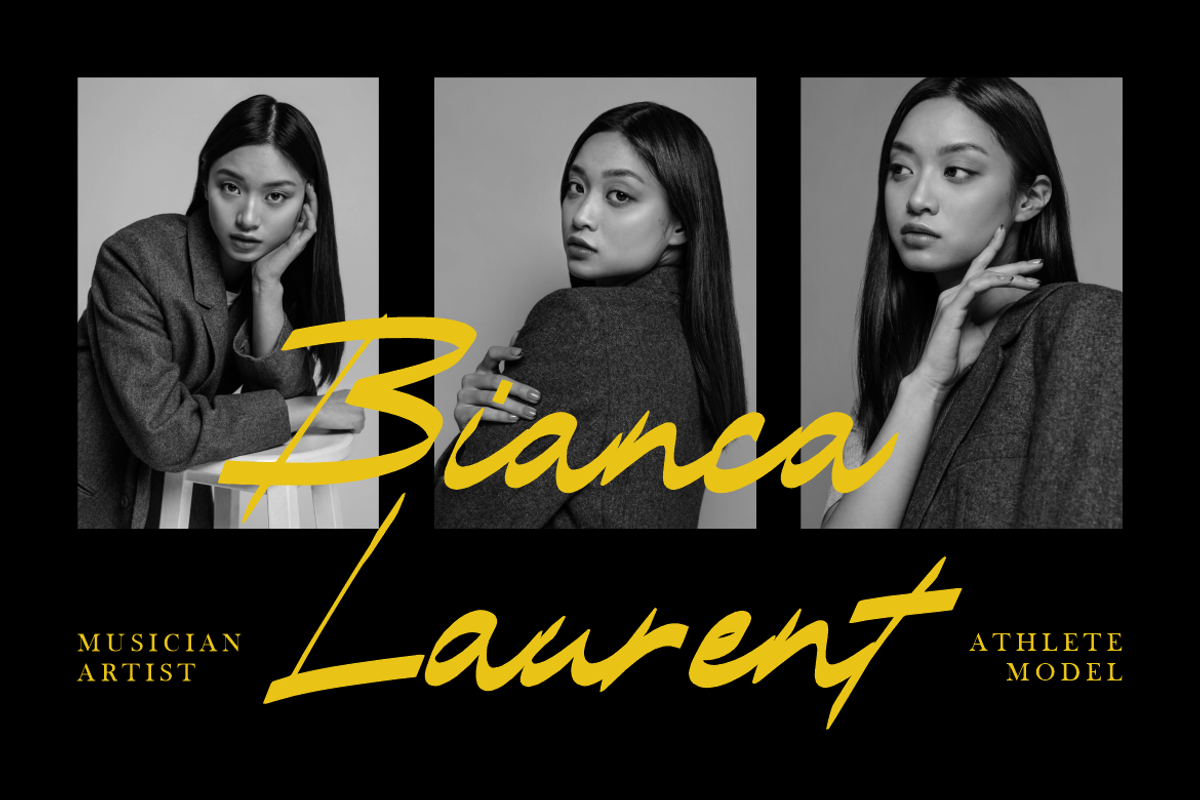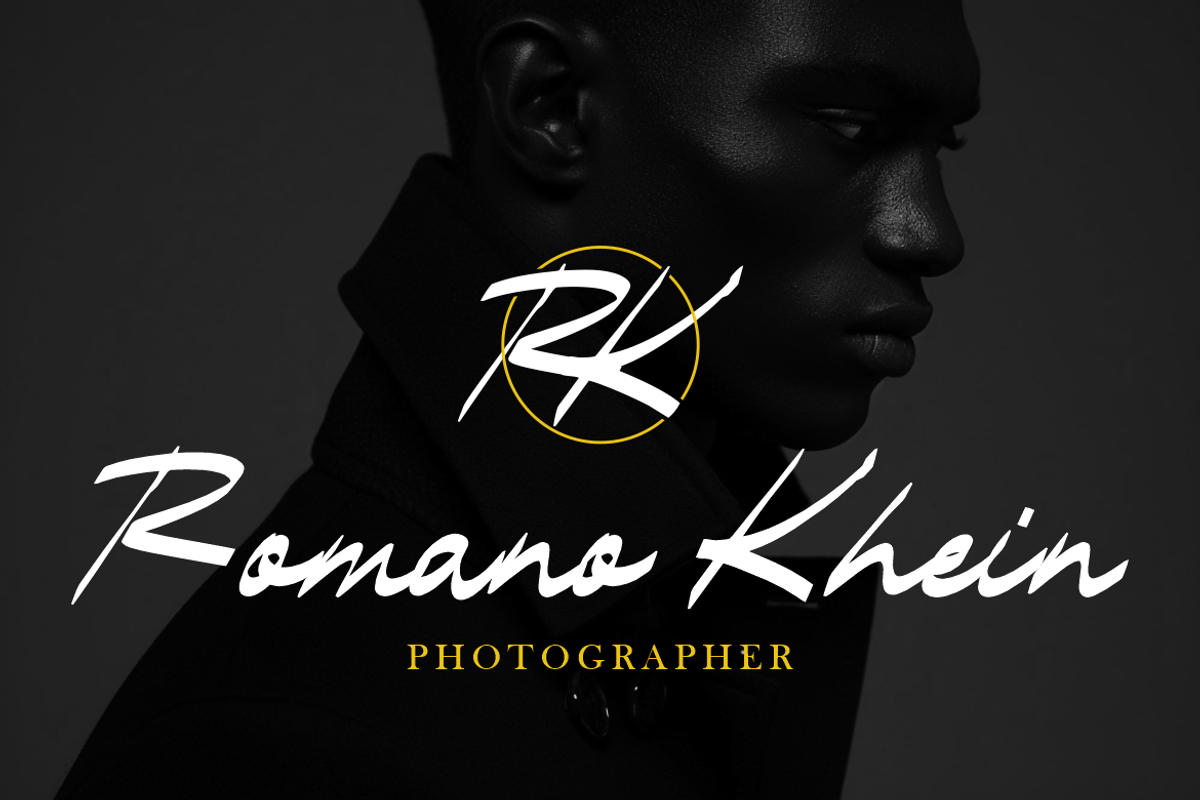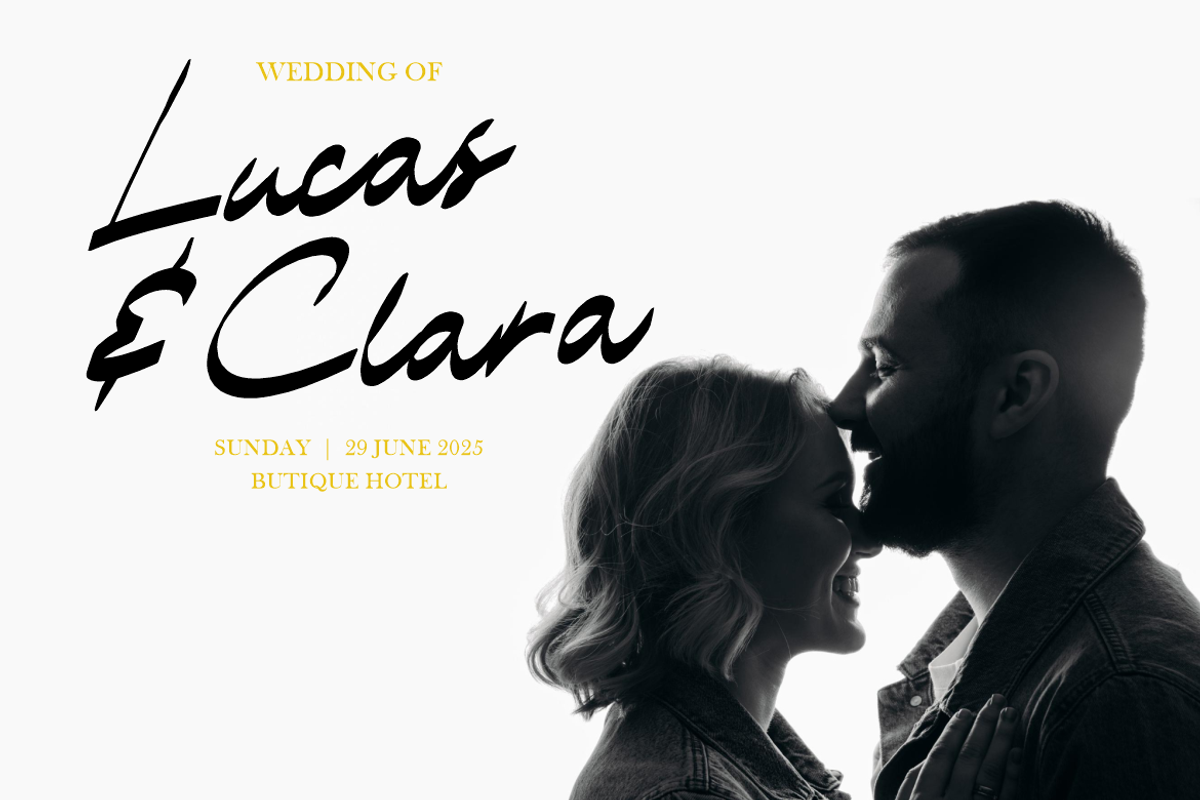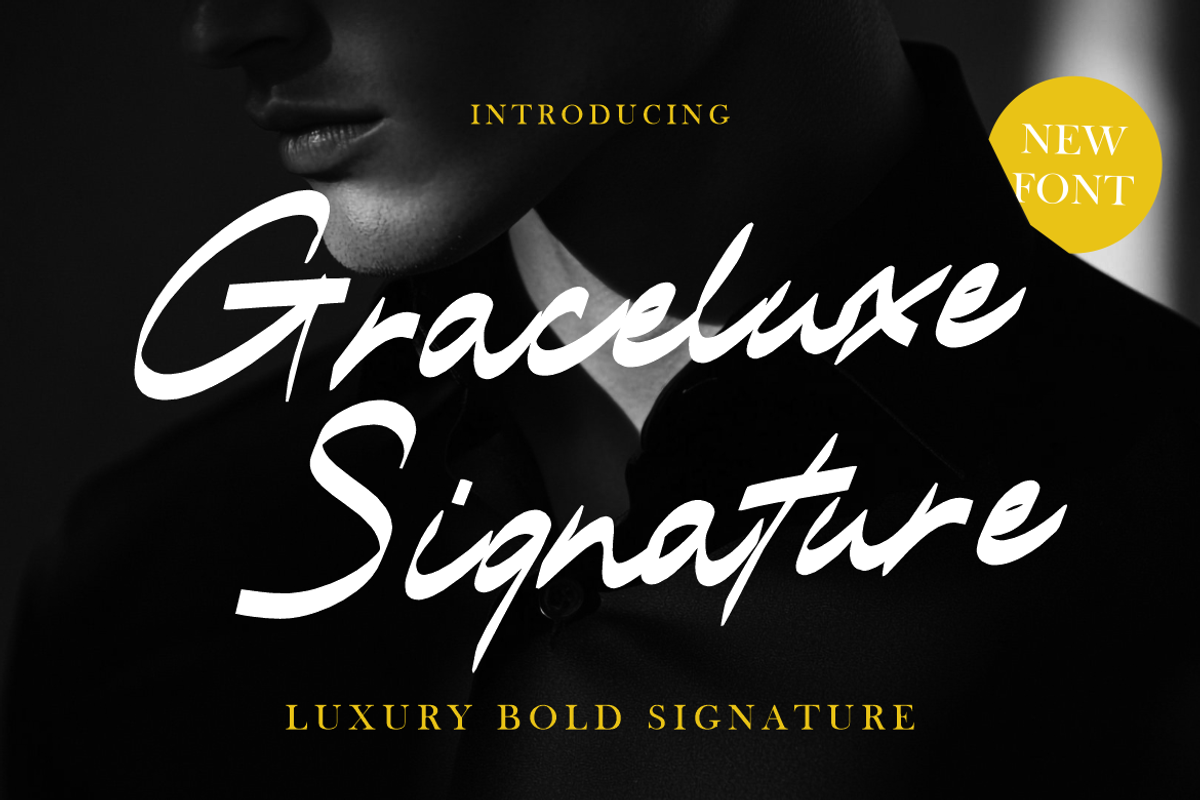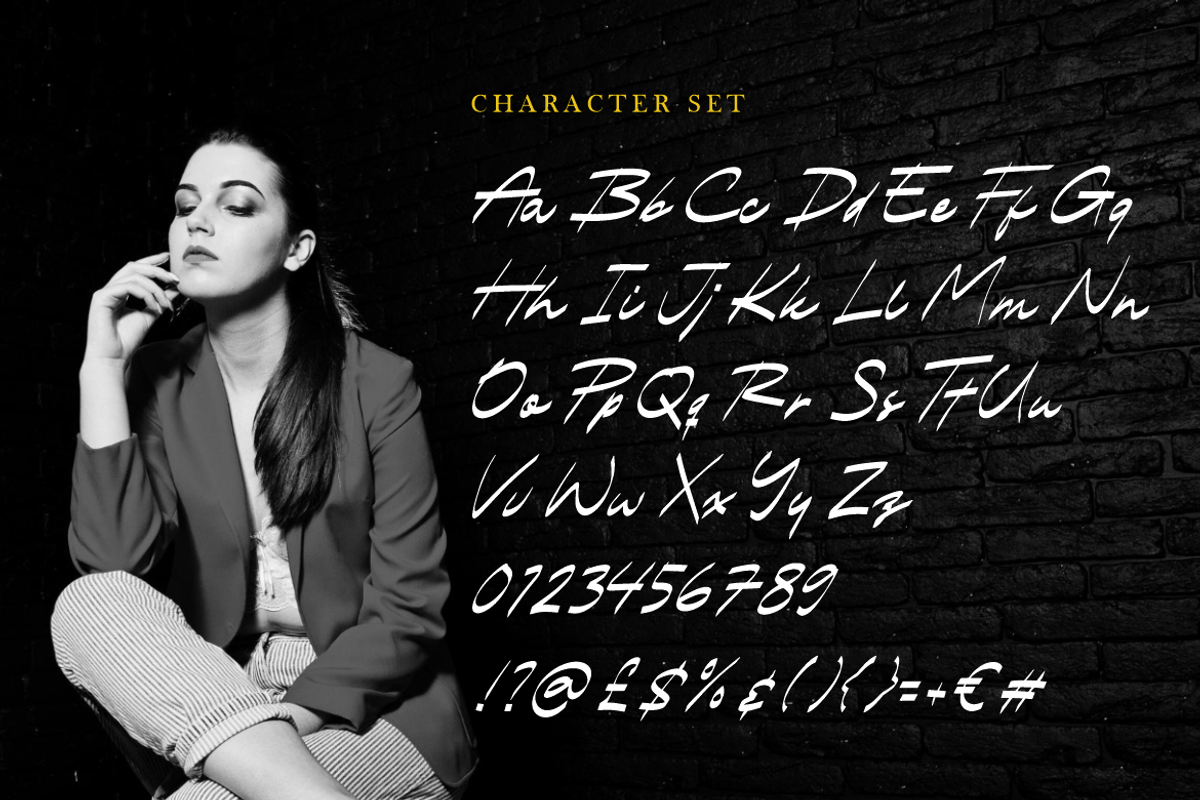
Graceluxe Luxury Signature Font
Graceluxe Luxury Signature Font captures sophistication through its confident strokes and fluid handwriting style. The letters are slightly slanted with bold yet graceful lines, reflecting a sense of confidence and exclusivity. Each curve and connection feels intentional, making it ideal for creating high-end designs that balance modern elegance with artistic flair. The font’s medium-to-thick brush pressure gives it a striking presence while maintaining smooth flow and refined character spacing. Graceluxe Luxury Signature Font evokes the essence of handwritten luxury — bold, poised, and effortlessly stylish.
This font is perfect for logo design, personal branding, fashion editorials, invitation cards, photography watermarks, magazine titles, and elegant packaging. Its natural rhythm and premium style make it versatile for both formal and creative contexts. Use it to bring a signature touch to modern branding, wedding stationery, or exclusive marketing materials. The luxurious character of Graceluxe Luxury Signature Font ensures every word feels curated and timeless, leaving a lasting impression. Designed for designers who appreciate simplicity and finesse, this typeface transforms ordinary text into an emblem of style and distinction.